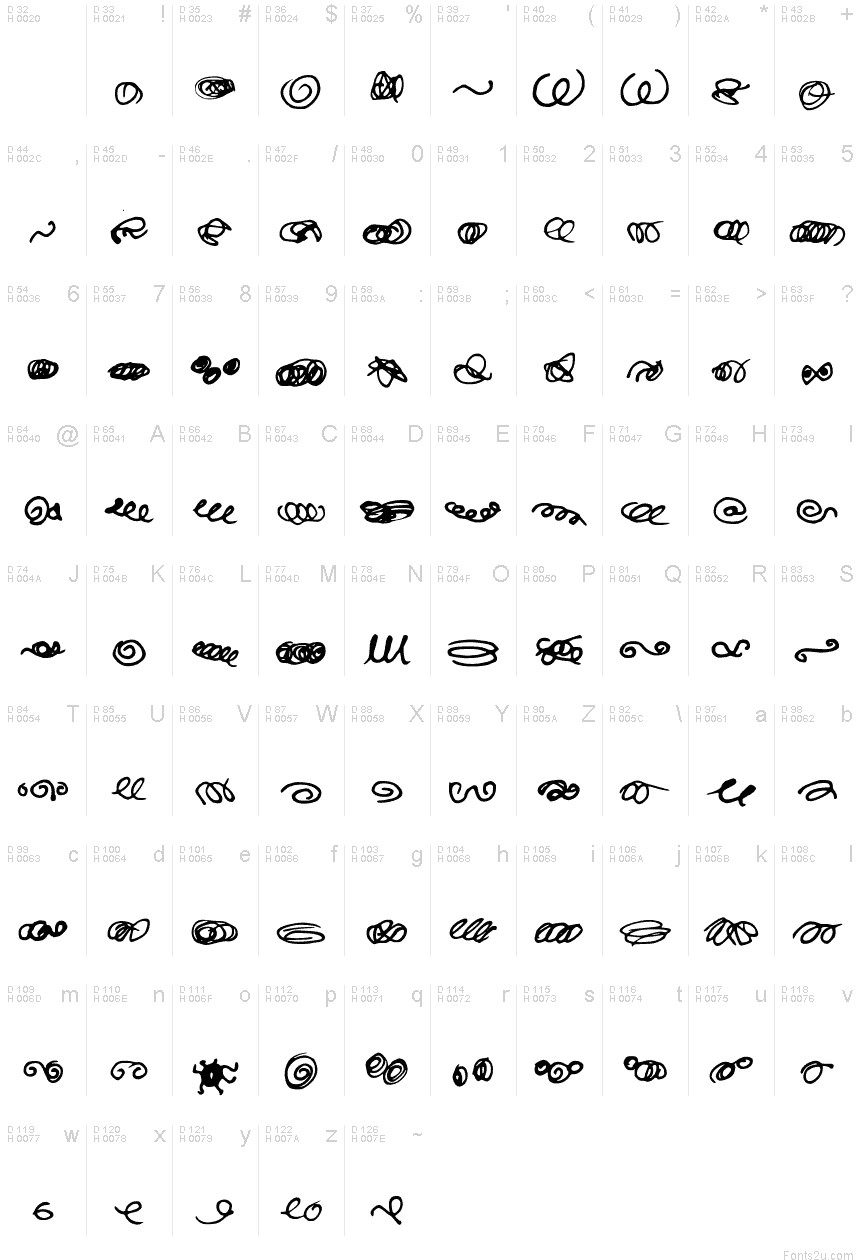
Random Swirls
This is a series of handwritten swirls, you might find a character that you have just been looking for! Please leave a comment for feedback.